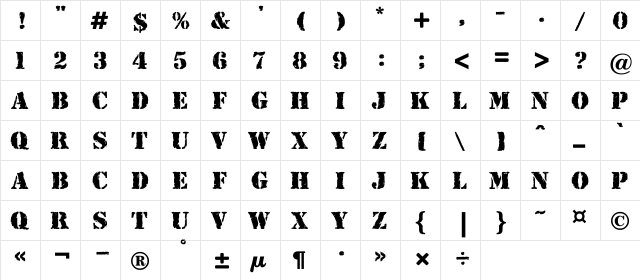
a_StamperRg&Bt Regular
Design Context for a_StamperRg&Bt Typeface
a_StamperRg&Bt borrows the utilitarian aesthetic of stencil lettering, with its characteristic cutaways and no-frills construction lending an industrial edge.
Ideal for industrial branding, streetwear, military-adjacent aesthetics, and urban signage projects.
Pro Tip: Pair a_StamperRg&Bt with raw, utilitarian design elements — exposed concrete textures, flat colour, and minimal ornamentation suit it well.